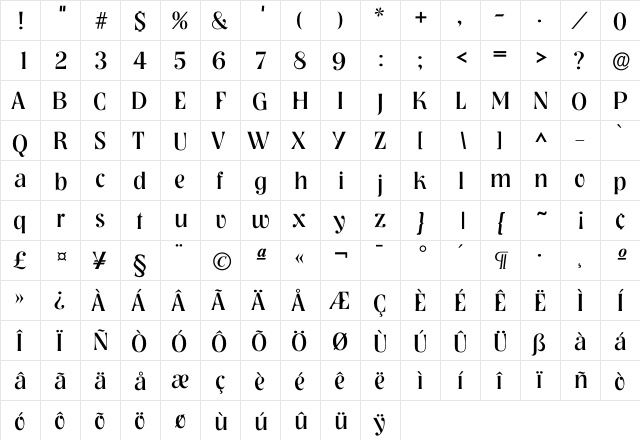
Nashvi Regular
Design Context for Nashvi Typeface
Nashvi takes a measured approach to typography — its balanced proportions and neutral character make it a reliable workhorse for both digital and print work.
Pro Tip: Pair Nashvi with a font of contrasting weight or personality to build a more expressive typographic hierarchy.